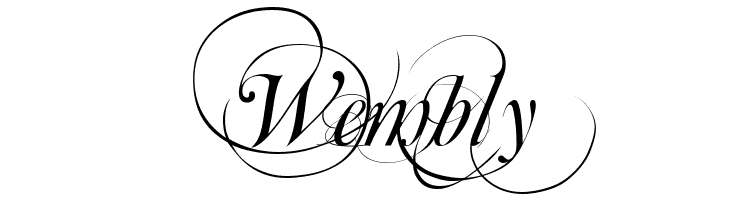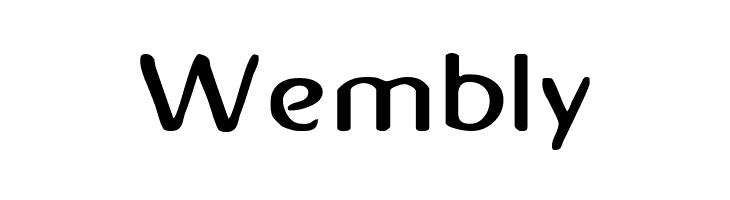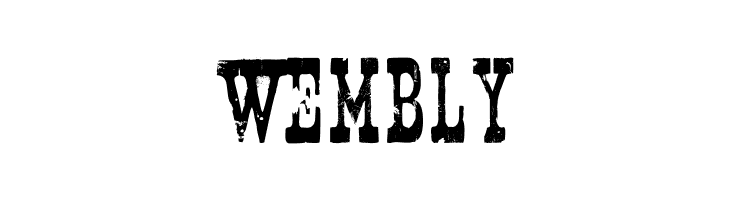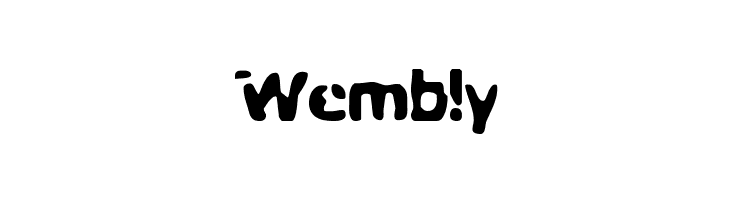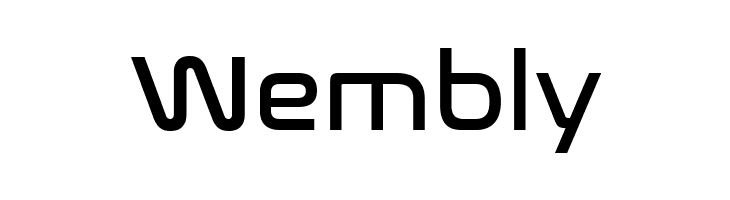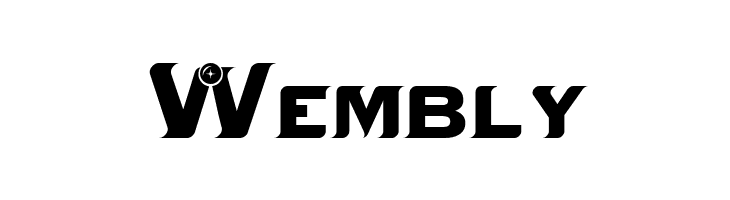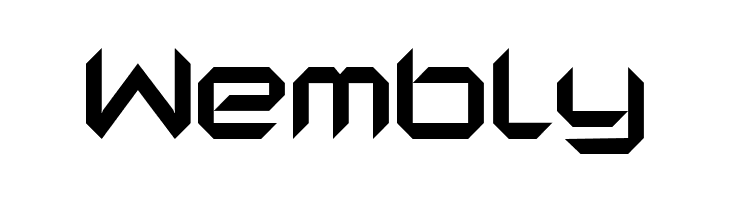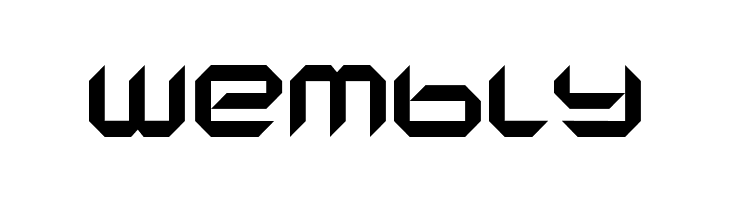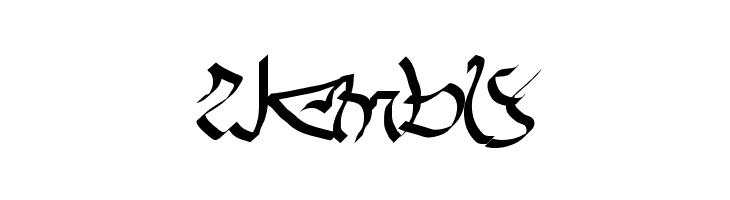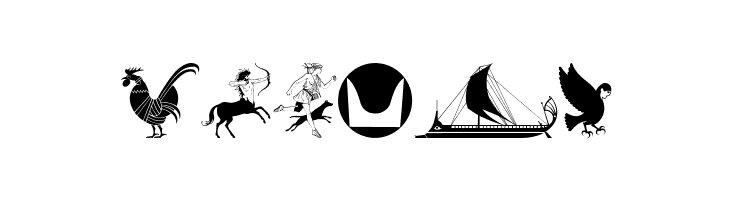
A playful, hand-drawn font with bold, uneven strokes and a whimsical style.
A bold, playful font with a hand-drawn, dynamic style.
A bold, playful font with a mix of solid and outlined elements, perfect for eye-catching designs.
A bold, geometric stencil font with a modern, industrial style.
A bold, stencil-style font with sharp edges and uniform thickness.
A bold, outlined font with a playful and modern aesthetic.
An ornate script font with elaborate swirls and flourishes, ideal for elegant designs.
A 1970s-themed decorative dingbat font with iconic retro illustrations.
A bold, playful font with an organic, hand-drawn style.
A bold, geometric font with dynamic curves and angles, offering a modern yet retro aesthetic.
A vintage, typewriter-style font with a distressed, handcrafted look.
A bold, distressed font with a vintage, weathered appearance.
A collection of 1970s-themed decorative icons and symbols.
A bold, modern decorative font with dynamic geometric shapes.
A bold, decorative font with circular embellishments for a futuristic look.
A bold, decorative font with circular embellishments and a modern, playful style.
A decorative font with mythological and hoplite warrior illustrations.
A bold, edgy font with sharp, angular strokes and an industrial feel.
A tall, narrow font with a vintage style and elegant curves.
A tall, narrow font with a modern and elegant design.
Portrait-based display font using women's faces as glyphs.
A clean, modern monospaced font ideal for coding and technical documentation.
A playful, hand-drawn font with exaggerated, uneven strokes and a whimsical flair.
A modern, geometric font with a sleek and futuristic design.
A modern, geometric font with smooth curves and a minimalist design.
A bold, distressed font with a vintage, textured style.